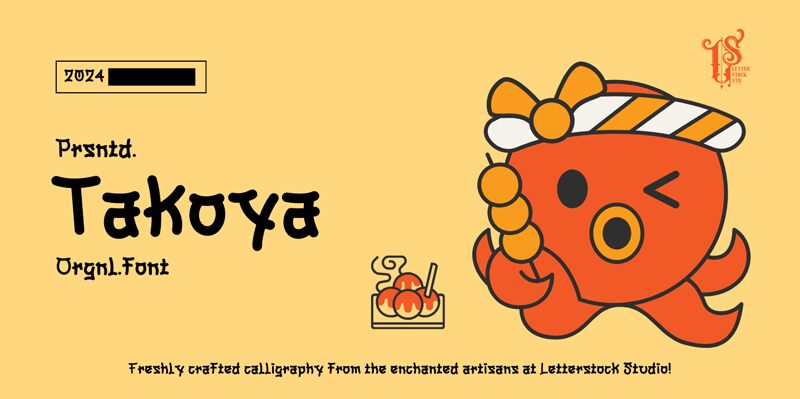
Takoya font by LetterStock Std is a free font full of depth and character. The font is modern, quirky, and full of artistic flavor. Each letter in this casual and expressive typeface is tailored specifically to create a mood that’s lively, engaging, and informal. Used in phrases and sentences, the wording draws attention without being pushy. This engaging typeface is a great choice for unique headlines.